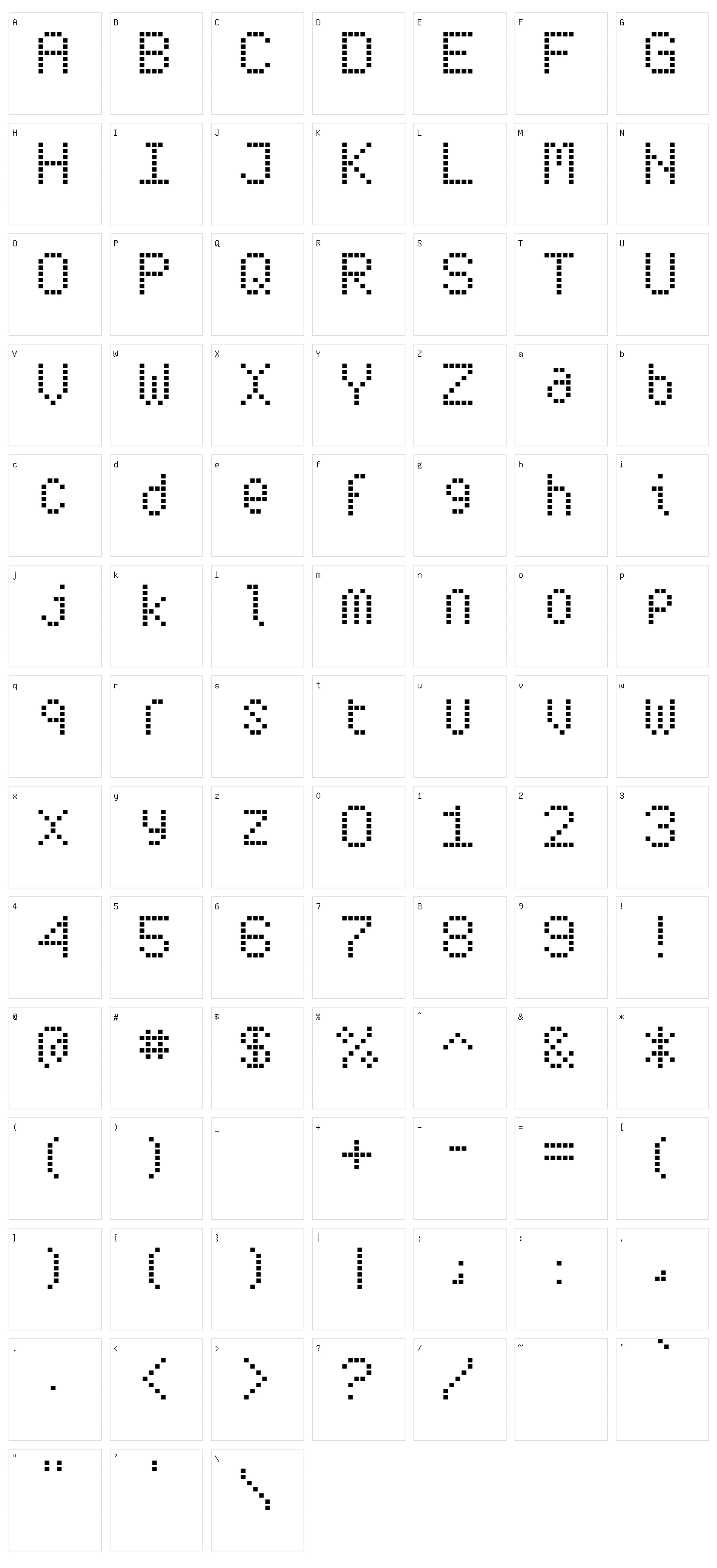
Subway Ticker
Designed by: K-Type
Category: LCD & Futuristic
Subway Ticker is based on an electronic display seen on a New York subway train in February 2005. Also included is an updated 'Grid' variation of the font that is slightly more spaced out using a more precise grid structure.